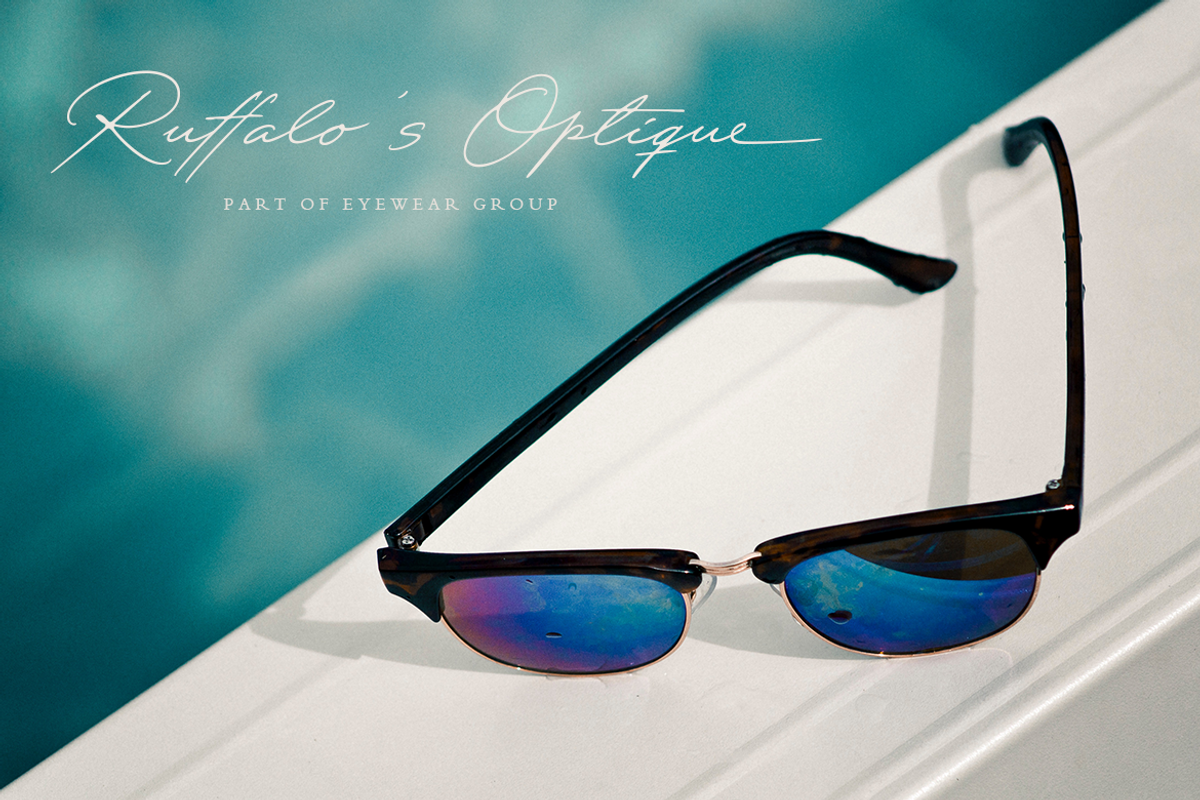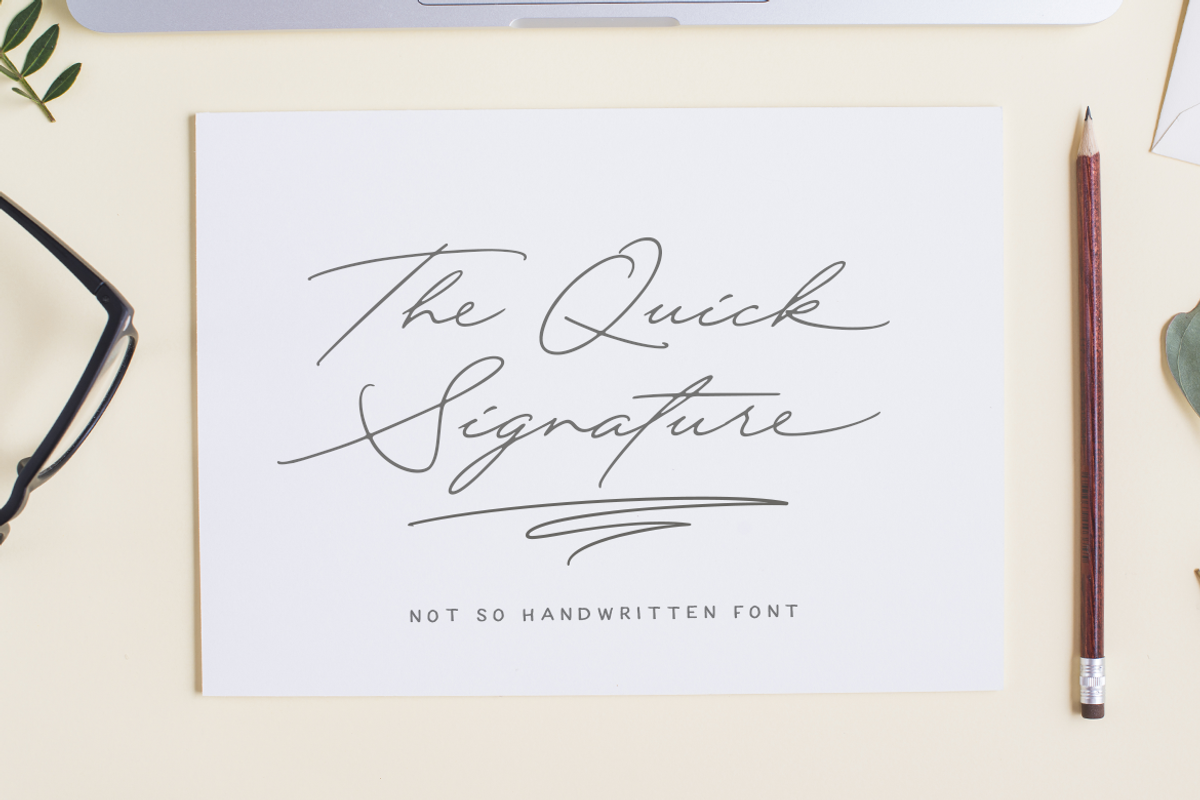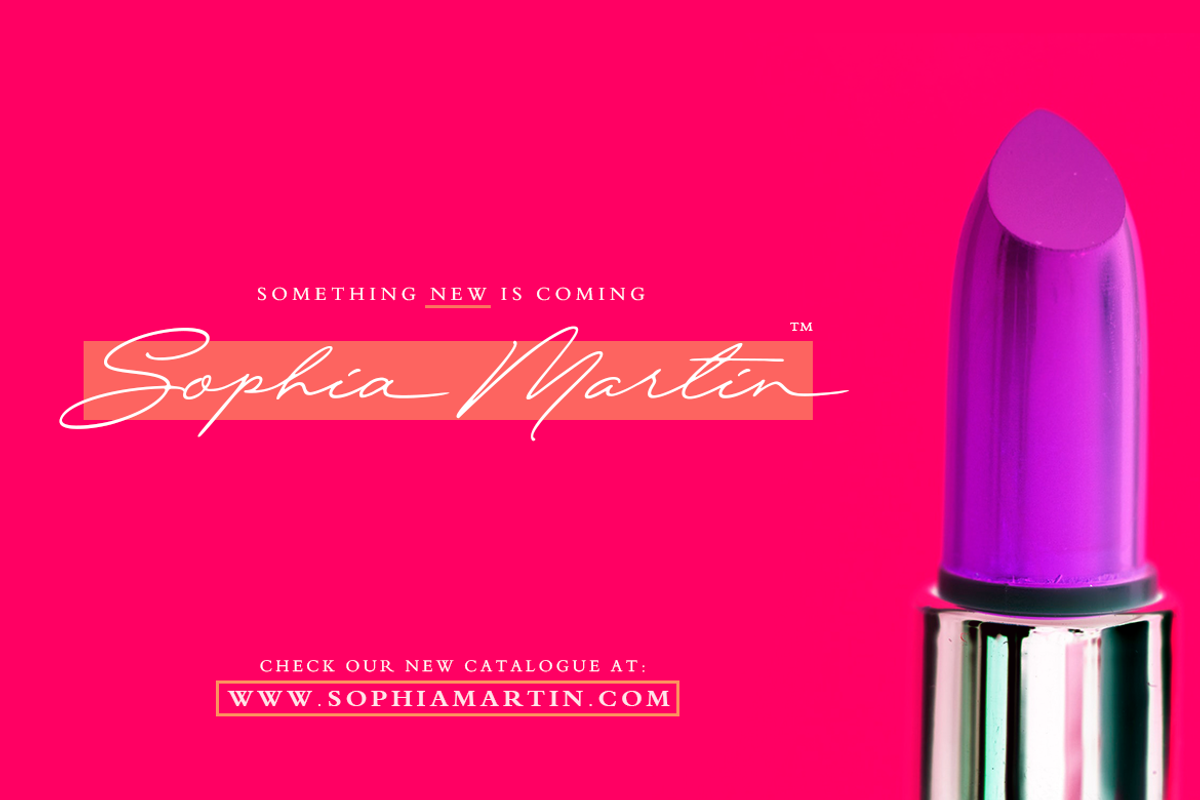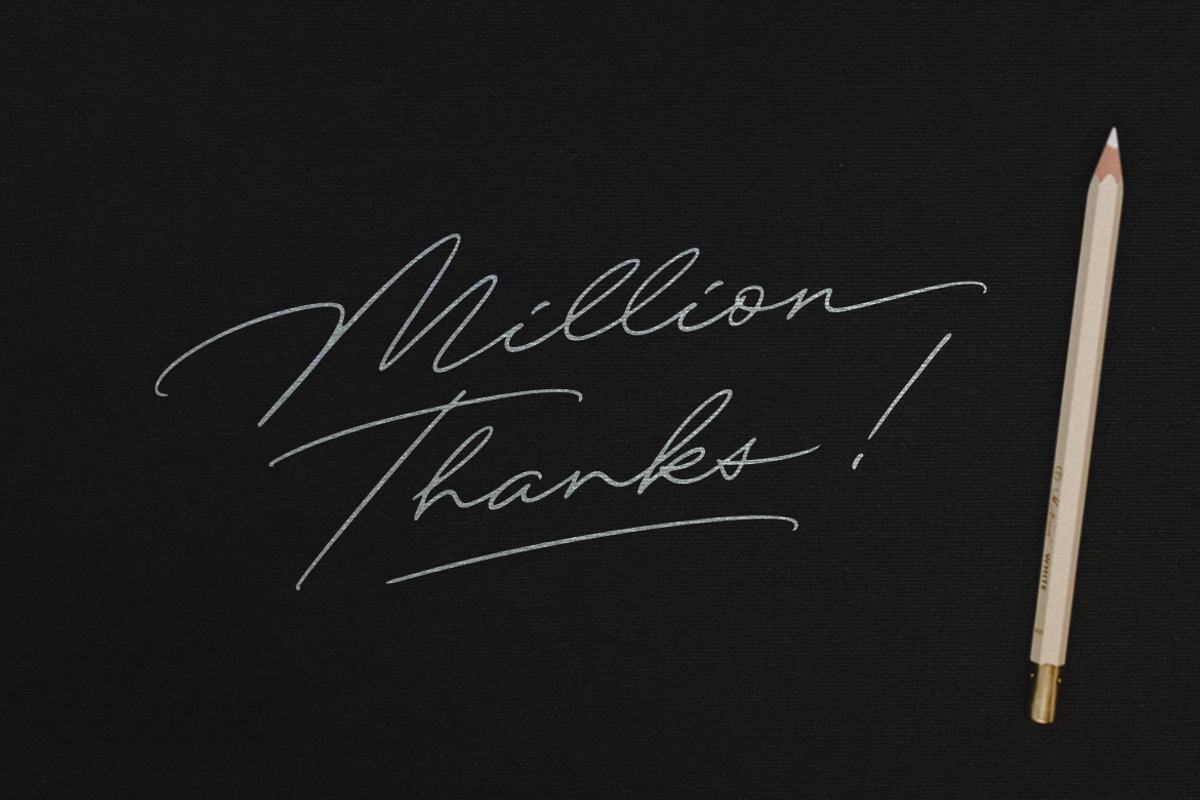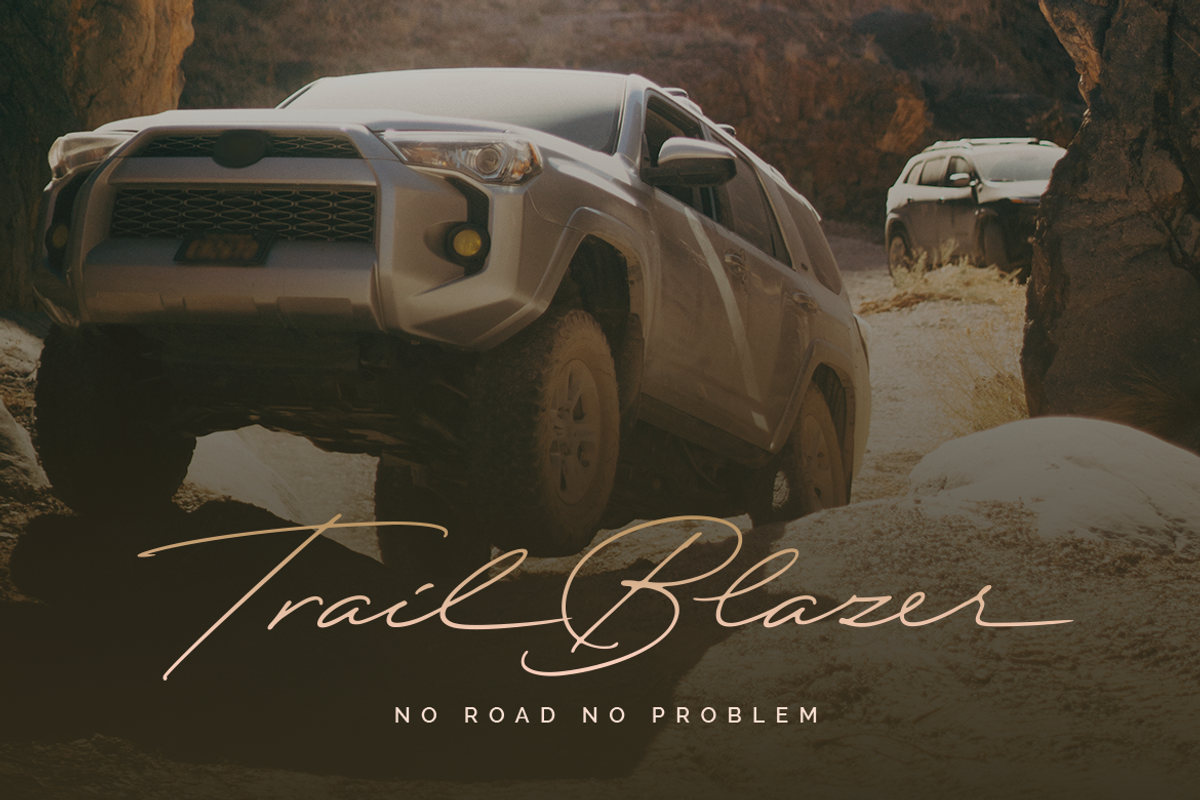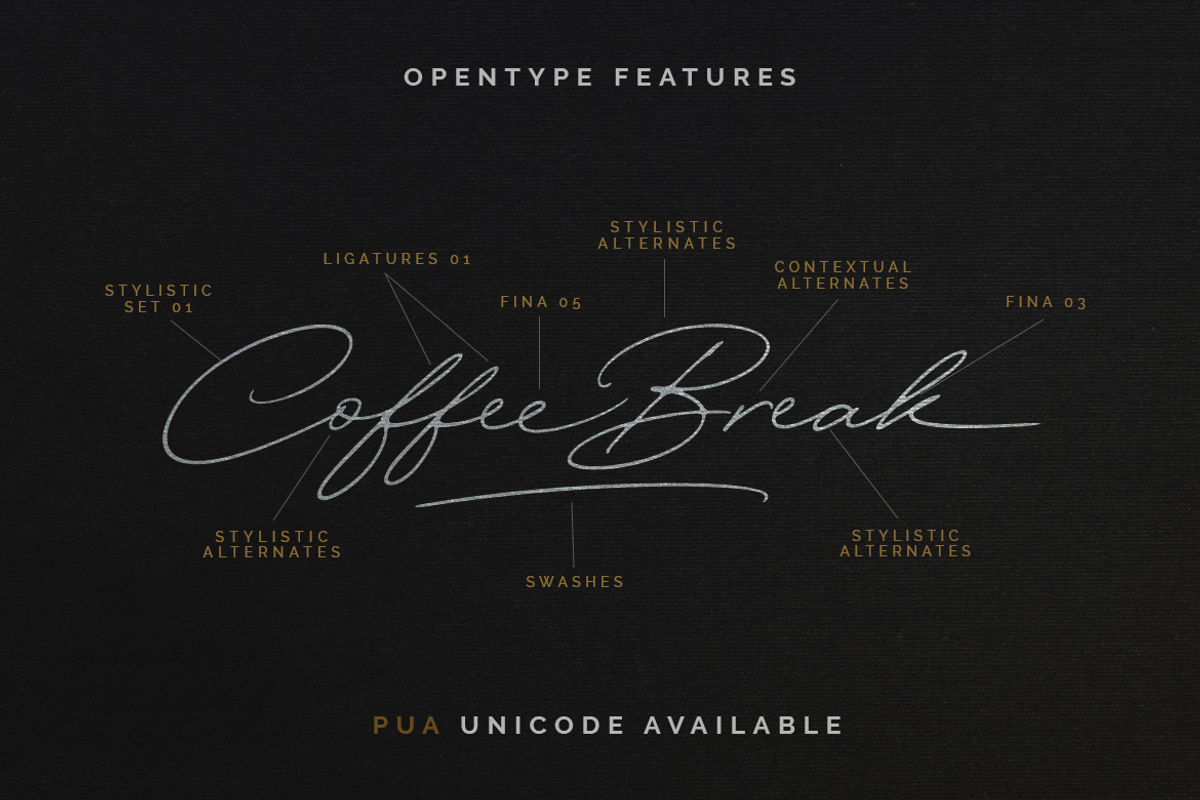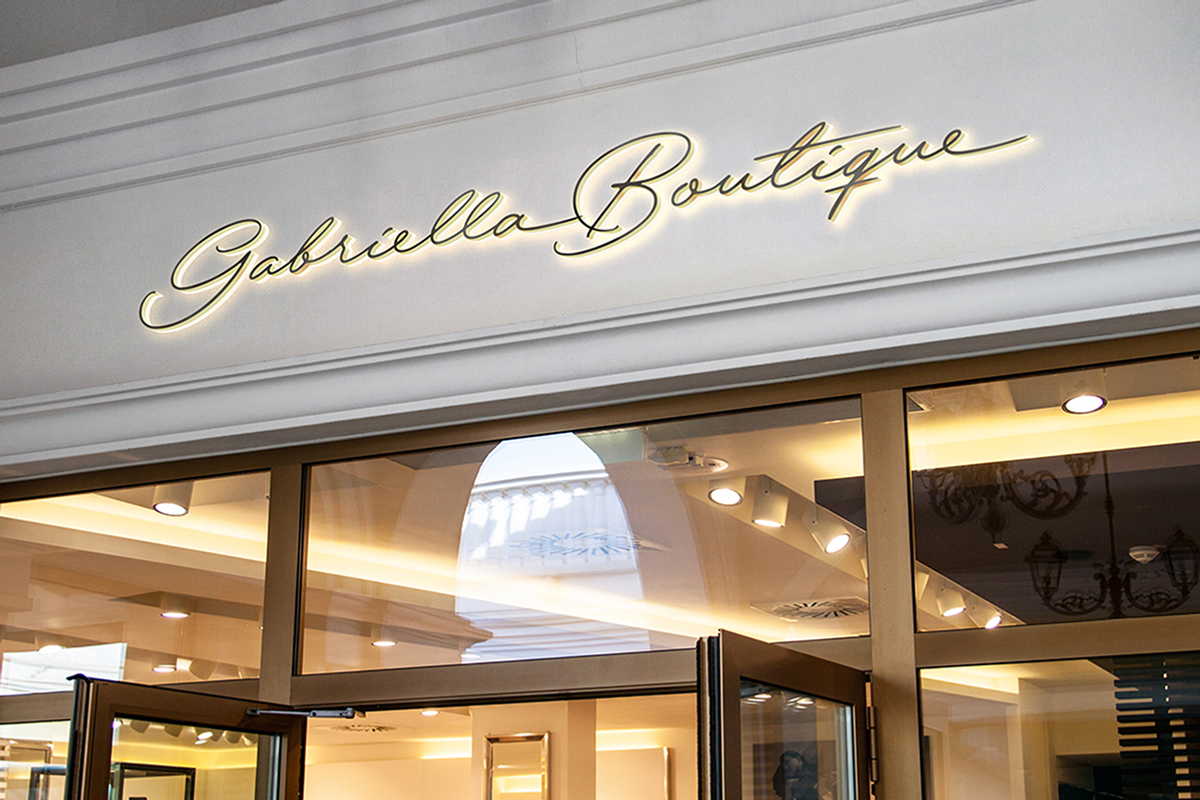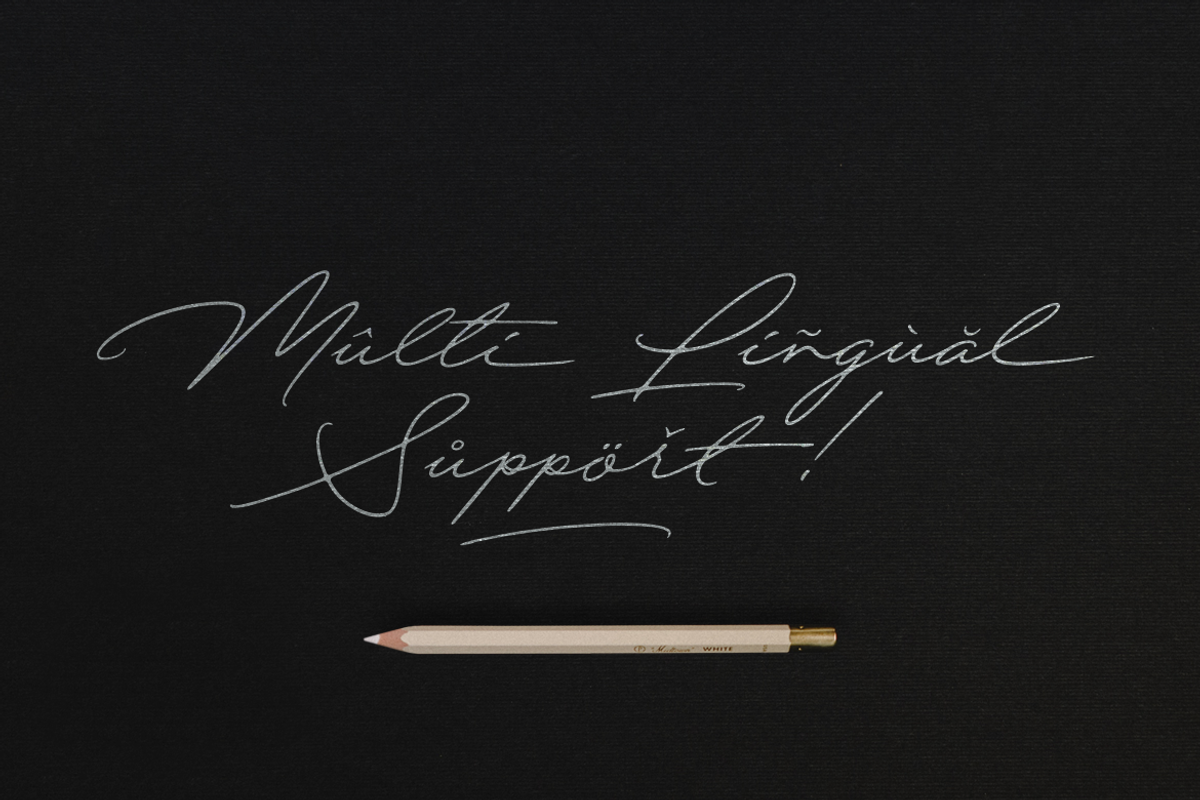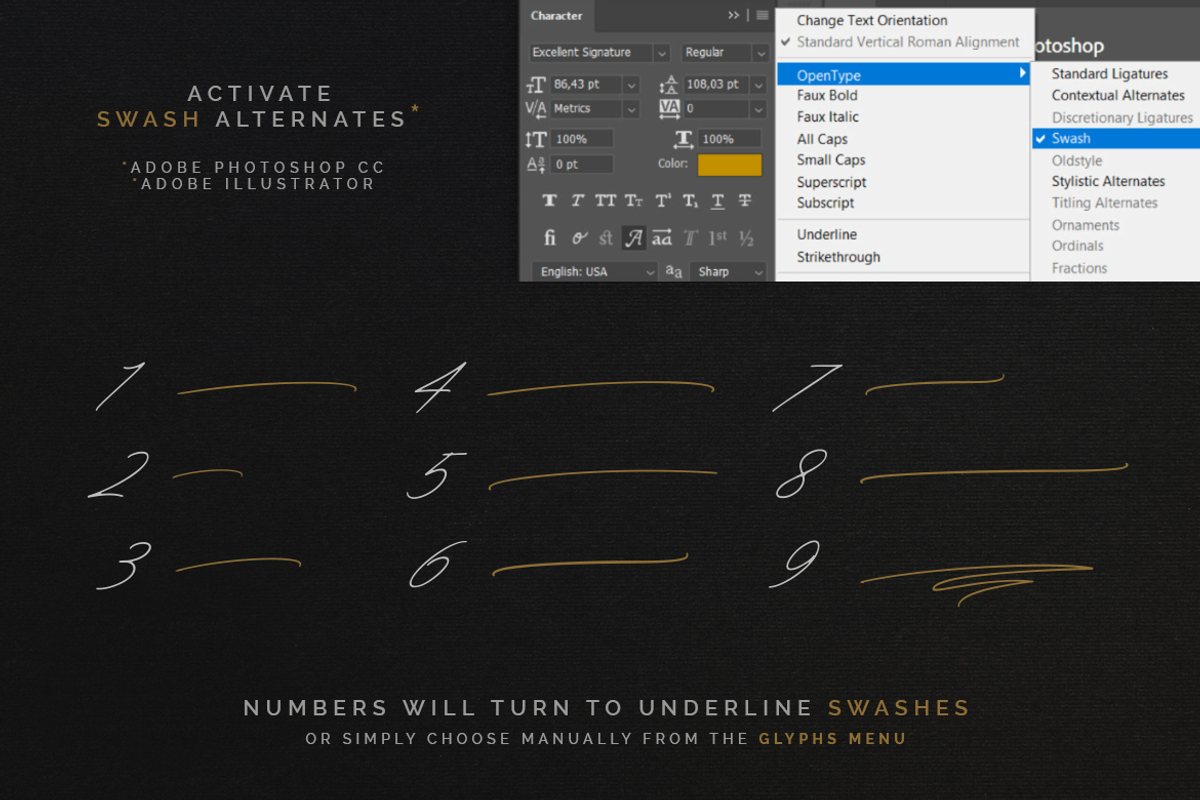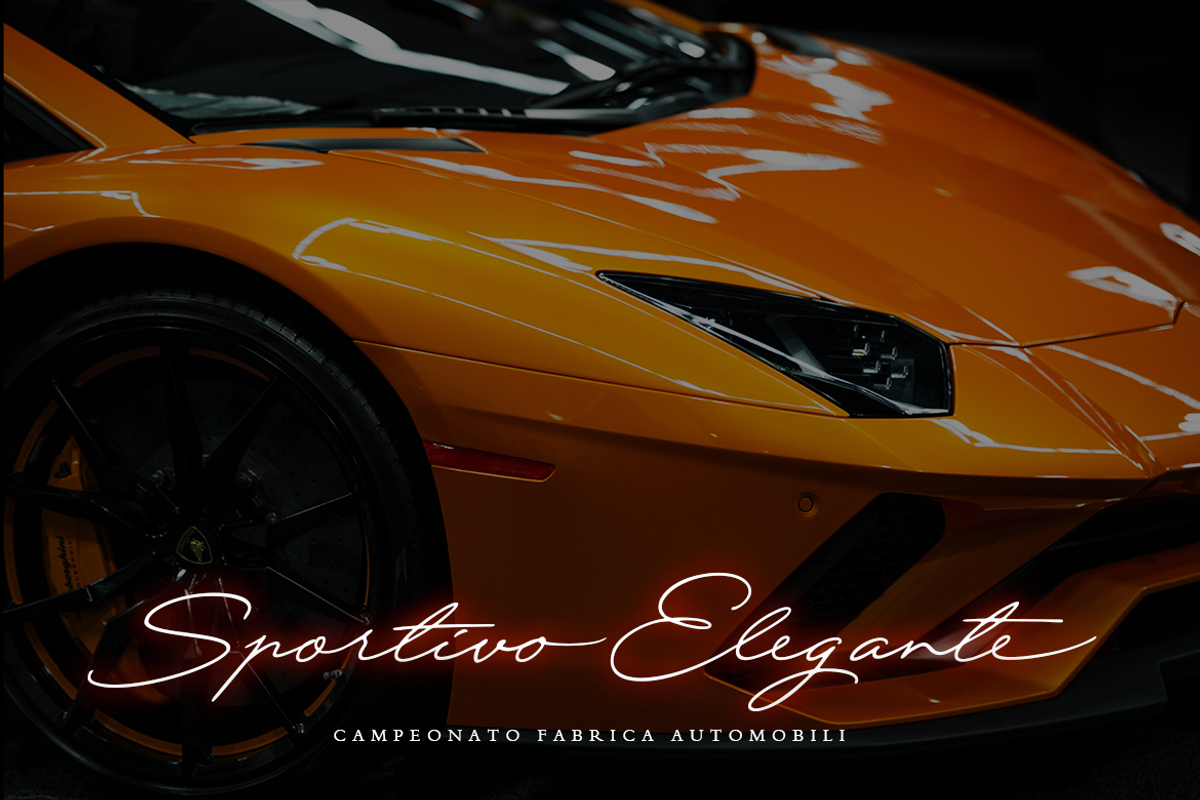
Quick Signature Pro
Practically, this font was made by hand, lettering on an Ipad Pro with Apple Pencil. Things on my mind when i started to create this handwritten font is: this font has to be a good lookingyet elegant, and will bring a good harmony when the letters are connected and paired each other.
No matter you make it large or small size, i believe with this font you can create a very elegant-readable signature for your personal or business name card, or a luxurious Logotype for your Brand or Corporation. For Storefront; Signboard or Neon Sign. For Magazine, Movies, or Book Titles. For Photography, Wedding Invitation, Restaurant Menu or T-shirt Design. For Flyers, Banner Ads, web and printing. From Food and Fashion to a Cosmetics product. Or even for Automobile Poster Design.
No limitations!
Total 518 glyphs packed inside this font. I've separated all the alternates glyphs into several OpenType Features:
- Stylistic Alternates / SALT
- Contextual Alternates / CALT
- Initial Forms / INIT
- Terminal Forms / FINA
- Ligatures / LIGA
- Stylistic Set / SS01-09
- Swash / SWSH
- PUA Unicode are available!
[TIPS] This font will looks more gorgeous when you pairing with a Geometric Sans or a Serif Font. On my artwork, i use Raleway for Sans, and Traditional Arabic for Serif. I believe both fonts are free on Google Font or Typekit. For best typing experience, turn on "Contextual Alternates" on your program. This feature will make every ending letters are changes automatically when you type.